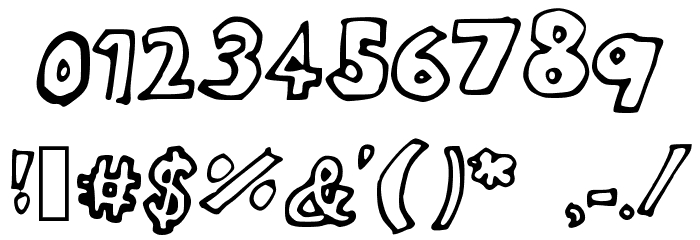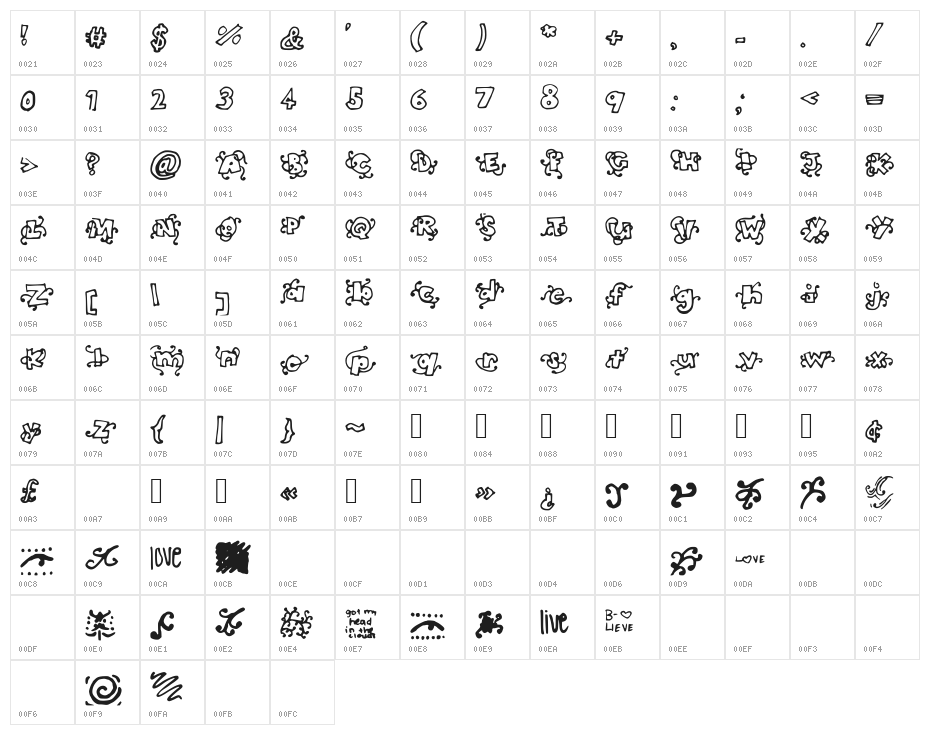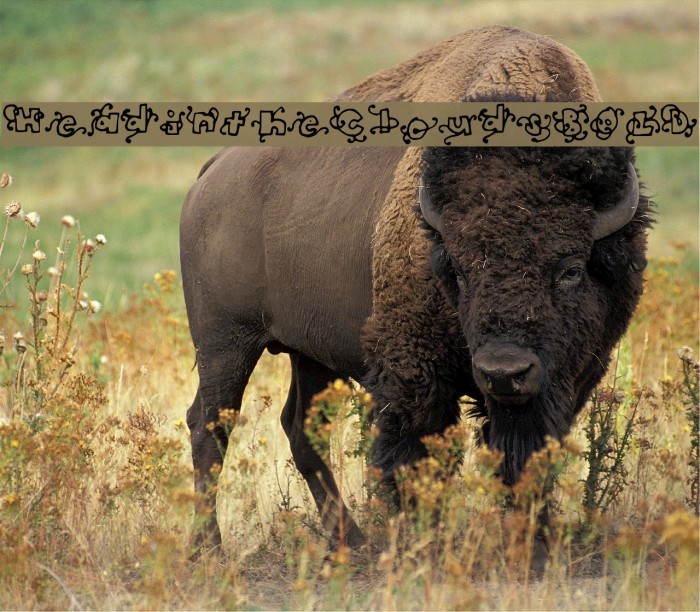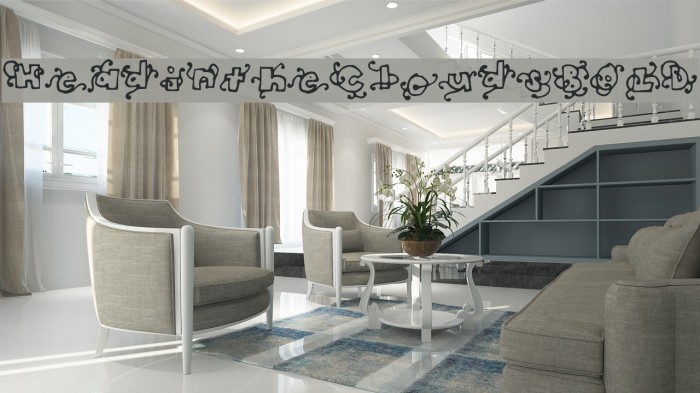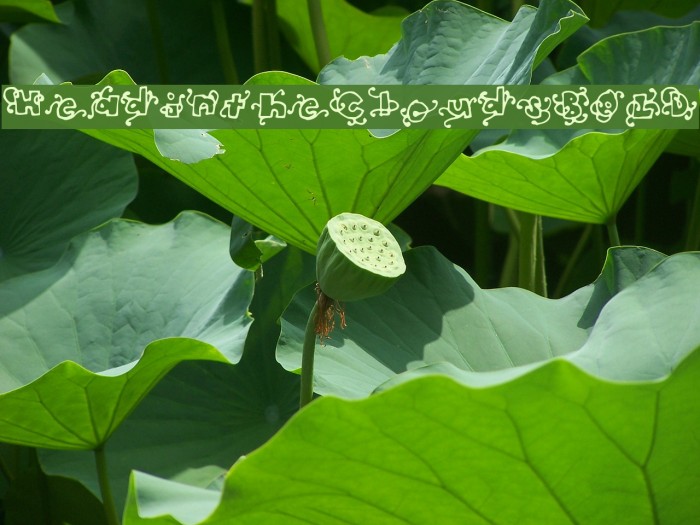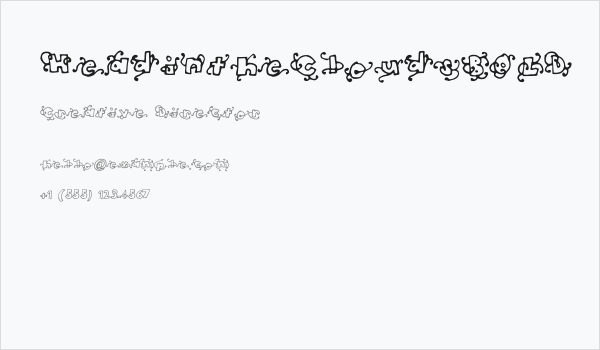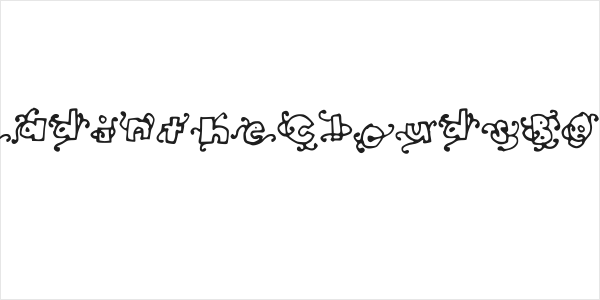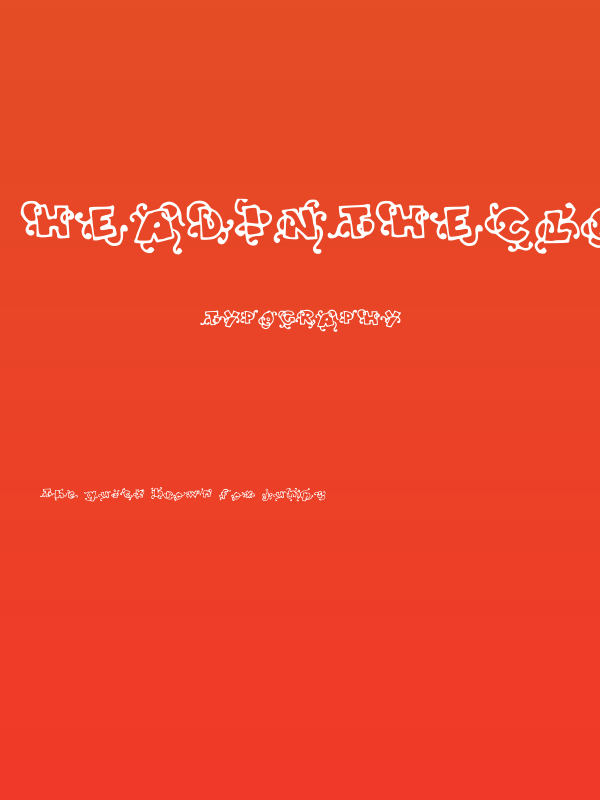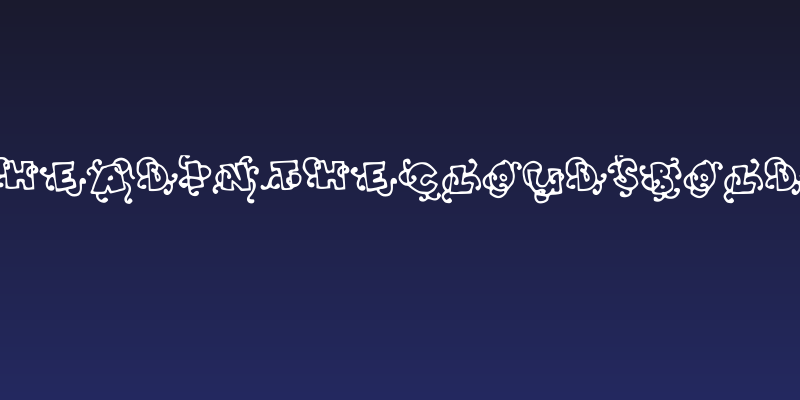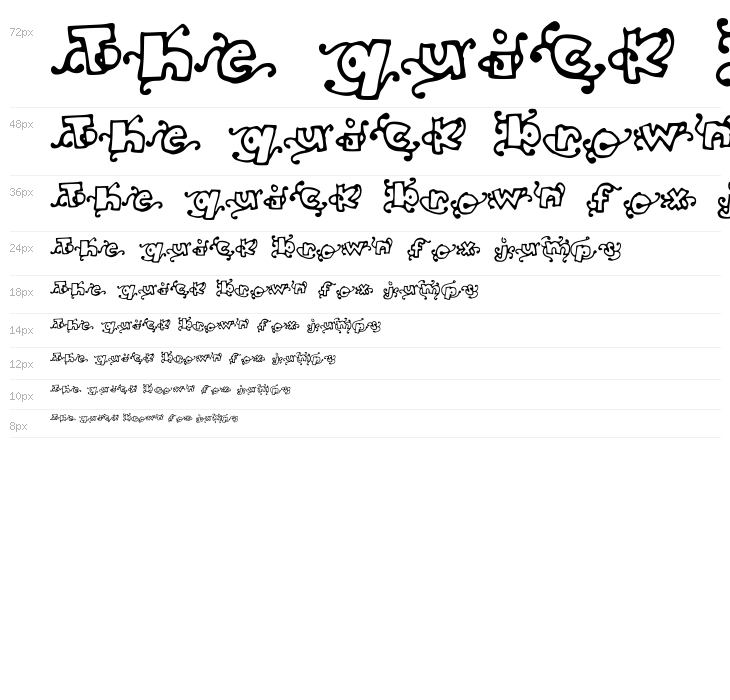
HeadintheCloudsBOLD Font
HeadintheCloudsBOLD Description
This playful and whimsical font features a unique design with cloud-like embellishments on each character, giving it a dreamy and imaginative appearance. The letters are bold and rounded, with a hand-drawn quality that adds a touch of creativity and fun. The font maintains a consistent weight throughout, ensuring readability while still capturing attention with its decorative elements. The numbers and special characters follow the same style, making it versatile for various uses. Its distinctive style makes it ideal for projects that aim to convey a sense of joy and creativity.